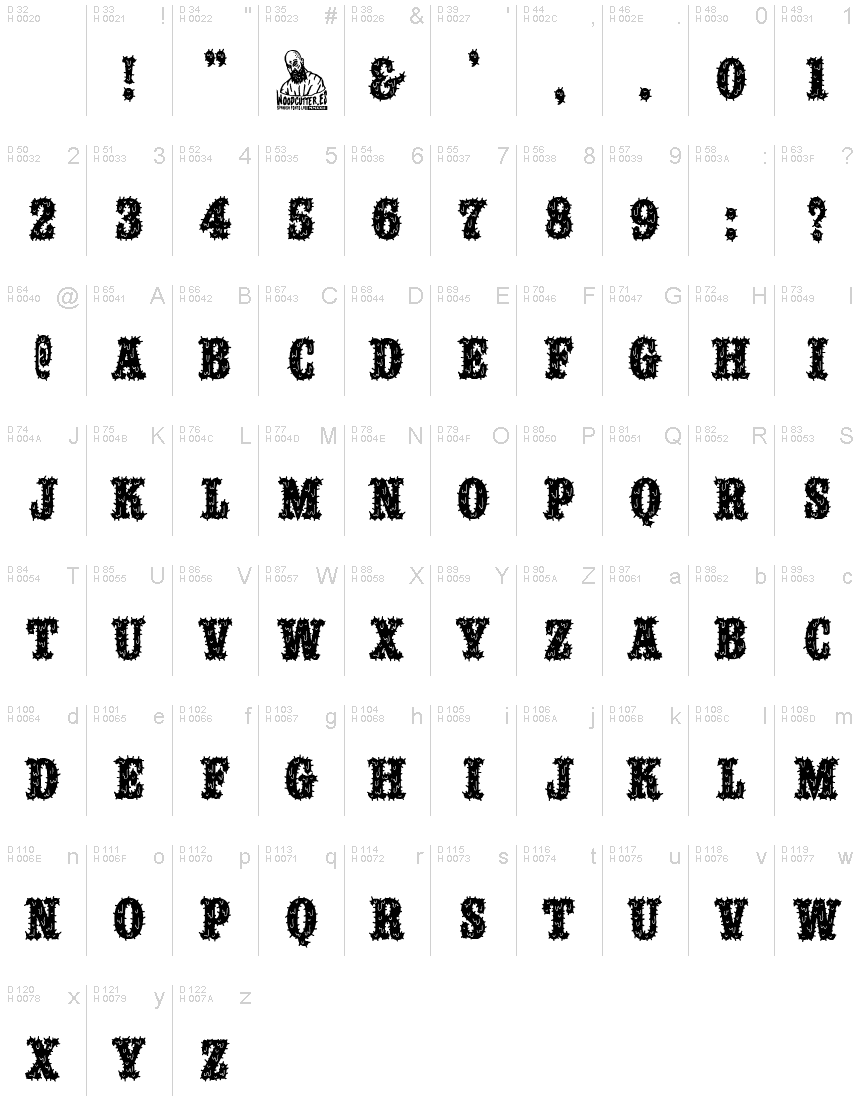
Feriante Drogado
Feriante Drogado, designed by Woodcutter, is a mesmerizing display font that adds a touch of whimsy to any project. With its extra-bold weight and semi-condensed width, this decorative typeface demands attention and exudes confidence.
Perfect for creating eye-catching headlines, logos, or posters, Feriante Drogado will make your designs stand out from the crowd. Its unique style lends itself well to diverse projects such as children's books, circus-themed events, or music album covers.
Let this extraordinary font bring a touch of magic to your creative endeavors.